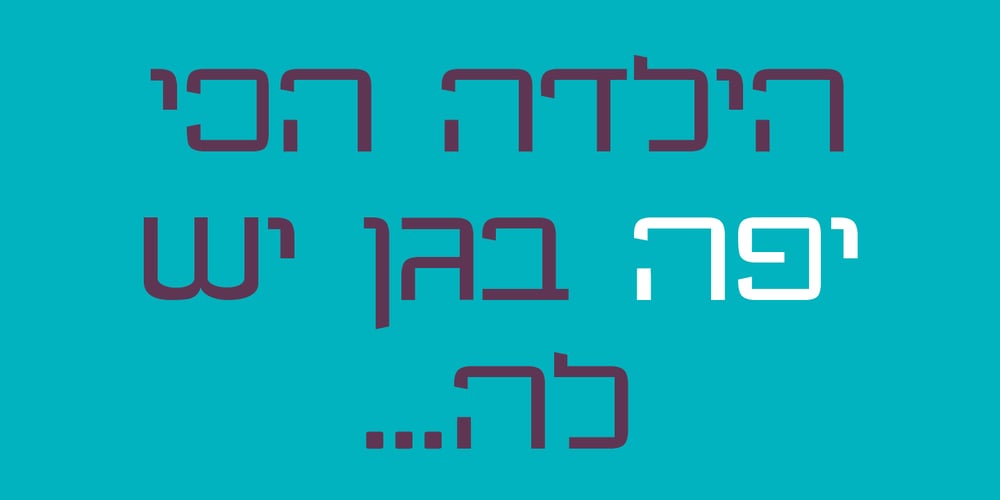
Bank MF
Bank MF font
Bank MF Font Family was designed by Omer Peleg and published by Masterfont. Bank MF contains 1 styles and family package options. You will distinguish these elegant strokes from a mile away.